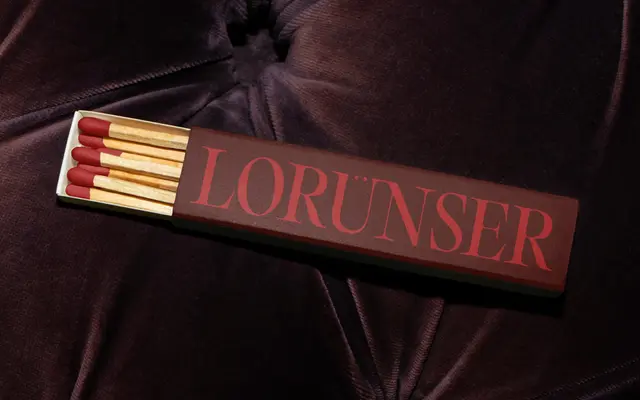
A humanist sans with terminal flares drawn from Optima's glyphic heritage, spanning nine weights with true italics featuring swashes and decorative terminals.
Designed by Andrea Biggio, Mat Desjardins and Francesca Bolognini, Museum takes Optima as its conceptual starting point, filtering that glyphic quality through research into vintage book covers, spines and museum typography. The terminal flares are most pronounced in the lighter weights and recede as the weight increases, keeping the family usable across body text and display settings. All nine weights include true italics with swashes and decorative terminals, an uncommon offering for a sans-serif family.
A humanist sans-serif with subtle terminal flares drawn from Optima's glyphic tradition, placing it firmly in the humanist category rather than a neutral or geometric grotesque.